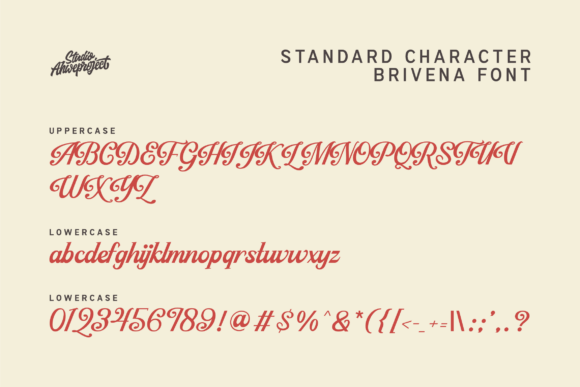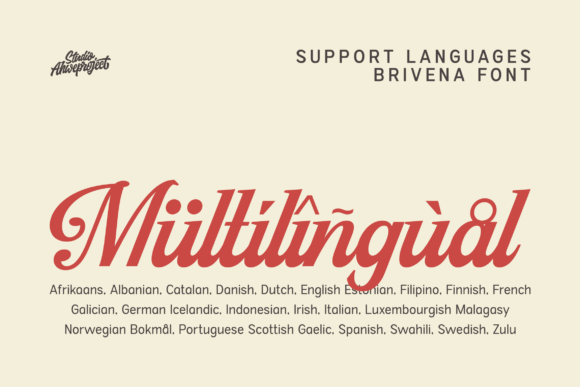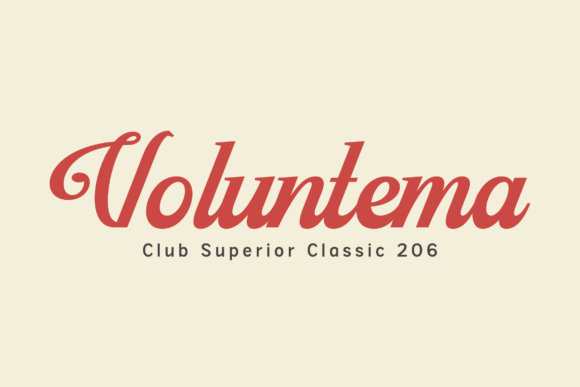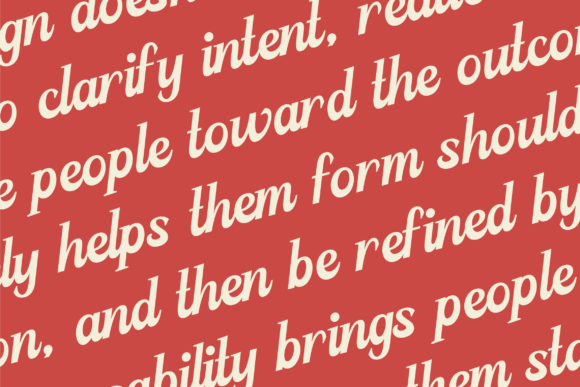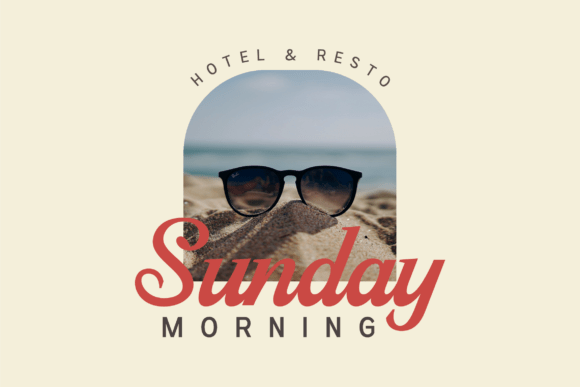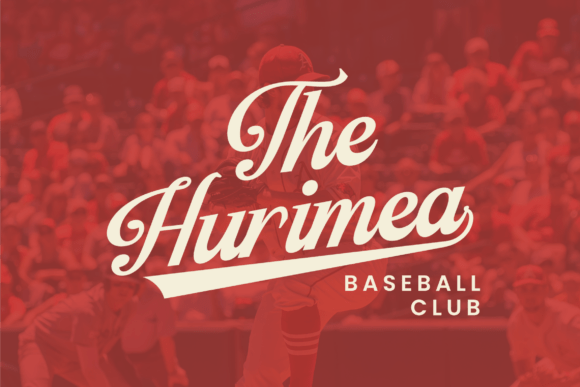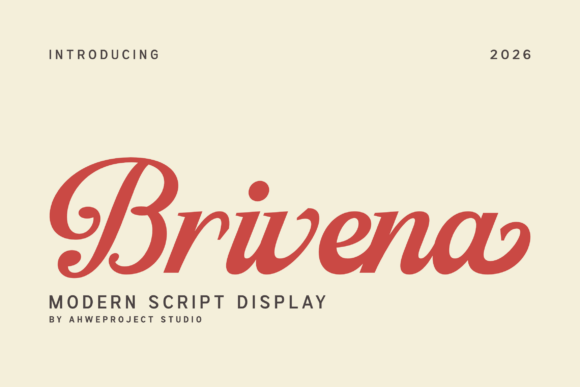
Ah, the eternal quest for the perfect font! I still remember working on a project for a high-end fashion brand, determined to create a visual identity that exuded luxury and sophistication. The client wanted a font that would make their brand stand out, but not at the expense of elegance. I scoured font libraries, tried out dozens of options, but nothing seemed quite right. That was until I stumbled upon Brivena Font.
Meet Brivena: The Modern Script Display Font
Brivena is a modern script display font that seamlessly blends elegance with bold personality. Designed with smooth curves and confident strokes, Brivena delivers a luxurious yet approachable feel—perfect for branding, logos, packaging, social media, and headline designs that need to stand out.
My Honest Review of Brivena
- 💫 Smooth, flowing letterforms that create a natural rhythm
- ✅ High readability, even at smaller sizes
- 🎨 Versatile and adaptable to various design contexts
- 👍 Confident and bold, yet elegant and refined
- ⚠️ Limited use of Brivena for body text; best suited for headlines and titles
- 🤔 Some users may find the font too bold or attention-seeking for certain design projects
- Experiment with OpenType features, such as glyphs and stylistic alternates, to add visual interest
- Access OpenType features, such as ligatures and swashes, to add personality to your text
The Story Behind Brivena
Brivena was designed with the goal of creating a modern script font that exudes confidence and elegance. The designer aimed to craft a font that would be both versatile and stylish, suitable for a wide range of design applications. With its smooth curves and flowing letterforms, Brivena is the perfect choice for designers looking to add a touch of sophistication to their projects.
Q: What is Brivena best suited for?
A: Brivena is best suited for headlines, titles, logos, and branding projects where a touch of elegance and bold personality is desired.
Q: Can I use Brivena for body text?
A: While Brivena is a beautiful font, it’s not recommended for body text due to its bold and attention-seeking nature. It’s best used for headlines and titles.
Q: Is Brivena a versatile font?
A: Yes, Brivena is a versatile font that can be used in various design contexts, from luxury branding to creative packaging.